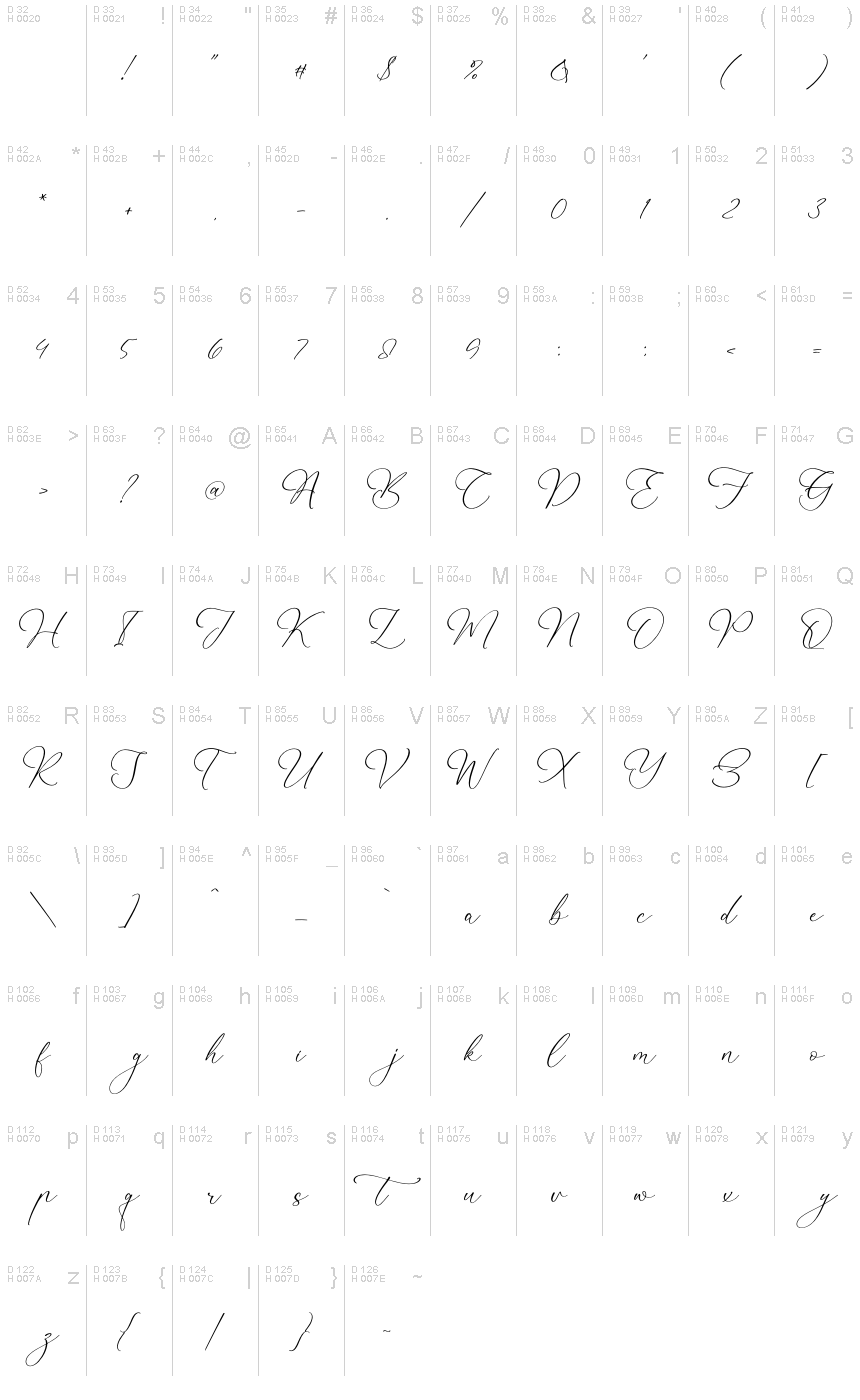
Martigale
Martigale, a captivating calligraphic font designed by Storytype Studio, exudes elegance and sophistication. This light-weight font boasts a graceful, flowing script that seamlessly blends traditional and modern aesthetics. The delicate curves and intricate flourishes create a sense of movement and fluidity, evoking a sense of effortless sophistication.
Martigale's versatility shines through its ability to elevate a wide range of design projects, from high-end branding and editorial layouts to elegant wedding stationery and luxury product packaging. Its refined yet approachable style lends itself to creating a captivating visual impression that resonates with audiences.